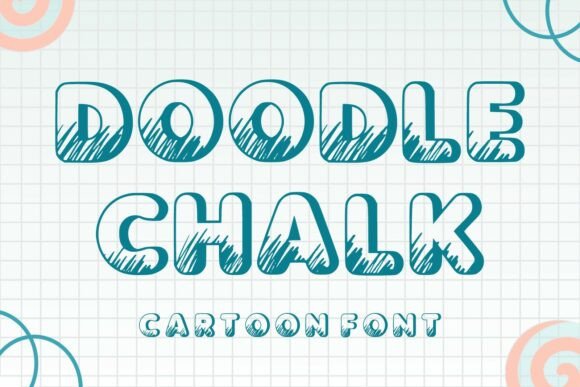
Doodle Chalk Font: The Ultimate Guide to a Bold, Rough, and Edgy Display Font
In the world of typography, fonts play a crucial role in conveying the tone and personality of a design. When it comes to creating a strong and rebellious vibe, a bold, rough, and edgy display font is often the go-to choice. One such font that has gained popularity among designers is the Doodle Chalk Font. In this article, we’ll dive into the world of Doodle Chalk Font, exploring its features, uses, and benefits.
What is Doodle Chalk Font?
Doodle Chalk Font is a bold, rough, and edgy display font with a round pattern style. It has a worn-out, street-inspired look that is perfect for creating a strong and rebellious vibe in designs like posters, album covers, or t-shirts. The letters have a distressed texture that gives a raw and urban feel, making it great for projects that need a tough and gritty appearance.
Key Features of Doodle Chalk Font
- Bold and Edgy: Doodle Chalk Font has a bold and edgy appearance that makes it perfect for designs that require a strong statement.
- Round Pattern Style: The font features a round pattern style that gives it a unique and distinctive look.
- Worn-out Texture: The letters have a worn-out texture that gives a raw and urban feel.
- Distressed Texture: The font has a distressed texture that adds to its rough and edgy appearance.
Uses of Doodle Chalk Font
Doodle Chalk Font is a versatile font that can be used in a variety of design projects, including:
- Posters: The font is perfect for creating bold and eye-catching posters for events, concerts, or campaigns.
- Album Covers: The font’s edgy and rebellious vibe makes it a great choice for album covers, especially for music genres like rock, punk, or hip-hop.
- T-shirts: The font’s bold and distressed texture makes it perfect for designing t-shirts with a strong and rebellious message.
- Logos: The font can be used to create bold and edgy logos for brands that want to convey a strong and rebellious personality.
Benefits of Using Doodle Chalk Font
Using Doodle Chalk Font in your design projects offers several benefits, including:
- Unique and Distinctive Look: The font’s round pattern style and distressed texture give it a unique and distinctive look that sets it apart from other fonts.
- Strong and Rebellious Vibe: The font’s bold and edgy appearance makes it perfect for creating a strong and rebellious vibe in designs.
- Versatility: The font can be used in a variety of design projects, from posters and album covers to t-shirts and logos.
- Easy to Read: Despite its bold and edgy appearance, the font is easy to read, making it perfect for designs that require a clear and concise message.
Fonts Similar to Doodle Chalk Font
If you like Doodle Chalk Font, you may also like the following fonts:
- Graffiti Font: A bold and edgy font with a similar distressed texture to Doodle Chalk Font.
- Streetwear Font: A font with a similar urban and rebellious vibe to Doodle Chalk Font.
- Bold Script Font: A font with a similar bold and edgy appearance to Doodle Chalk Font.
Pairing Doodle Chalk Font with Other Fonts
Pairing Doodle Chalk Font with other fonts can create a unique and visually appealing design. Here are some font pairing suggestions:
- Pair with a Sans-Serif Font: Pairing Doodle Chalk Font with a sans-serif font like Arial or Helvetica can create a nice contrast between the bold and edgy font and a clean and simple font.
- Pair with a Script Font: Pairing Doodle Chalk Font with a script font like Lobster or Pacifico can add a touch of elegance and sophistication to your design.
Doodle Chalk Font is a bold, rough, and edgy display font that is perfect for creating a strong and rebellious vibe in designs. Its unique and distinctive look, versatility, and ease of readability make it a great choice for a variety of design projects. Whether you’re designing a poster, album cover, or t-shirt, Doodle Chalk Font is a great option to consider.